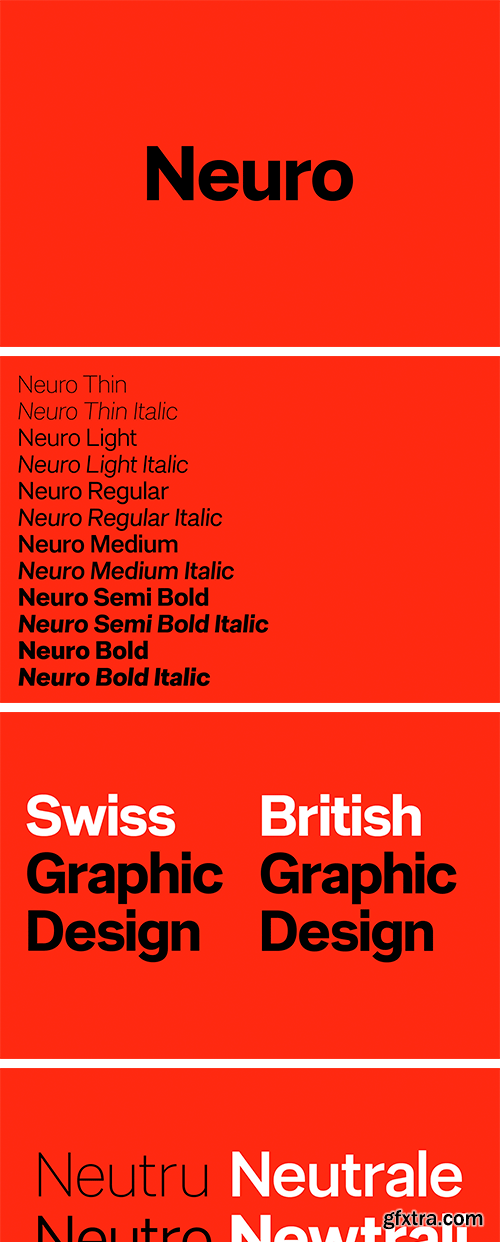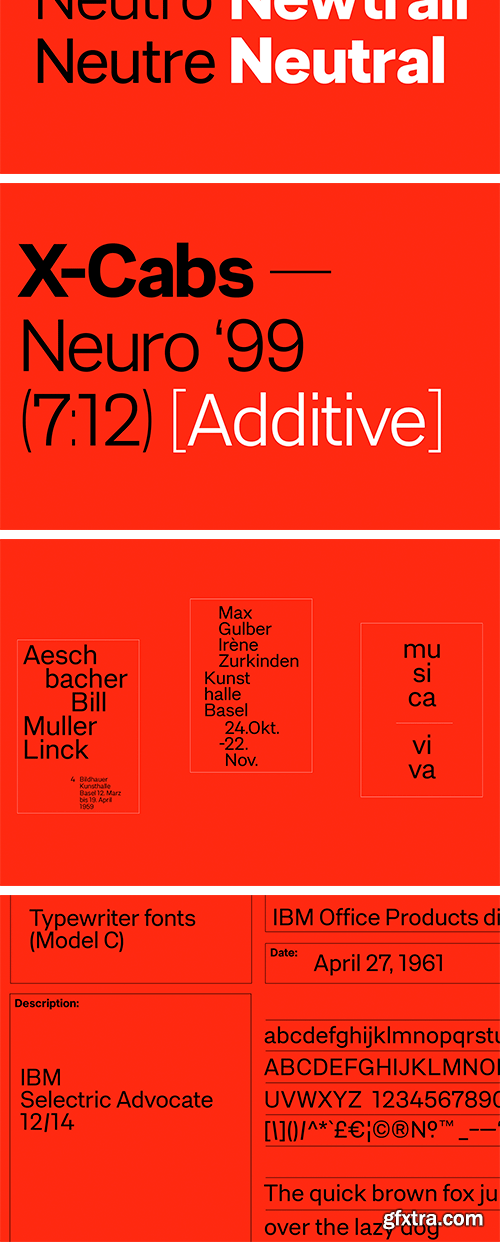
F37 Neuro Font Family
F37 Neuro is inspired by neutral Swiss sans-serif fonts such as Akzidenz and Helvetica. But there’s a British influence too, namely Edward Johnston’s classic London Underground font. In fact, F37 Neuro’s shape and structure is based around the contrasting, expressive curves and distinct straight edges of Johnson’s masterpiece.
Other subtle, quirky features have been sampled from IBM’s range of Selectric typewriter fonts from the 1960s. For example, the straight crossbar of the a and the downward tail on the top of the 7 take their inspiration from IBM Advocate. F37 Neuro comes in 12 weights. Its aesthetic is accessible, characterful and contemporary — reassuringly Swiss, but with a hint of British eccentricity that sets it apart.v